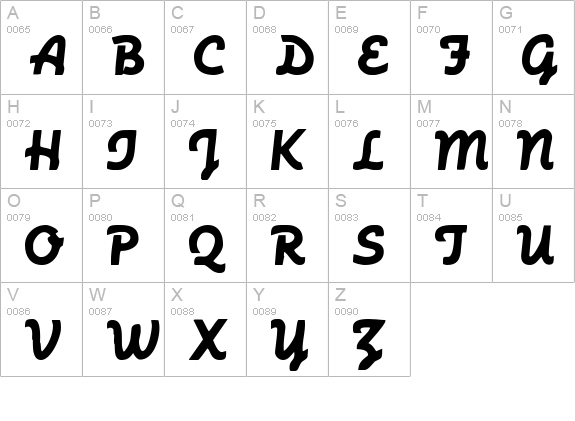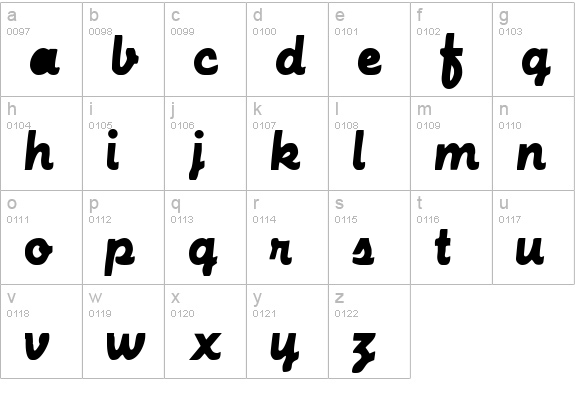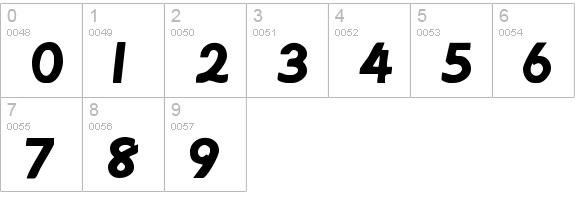
CastlerockScriptSSK is a stunning and elegant font that exudes sophistication and charm. With its graceful curves and stylish letterforms, this script font is perfect for adding a touch of luxury to any design project. Whether you're creating wedding invitations, branding materials, or packaging designs, CastlerockScriptSSK will elevate your work to the next level. The best part is that CastlerockScriptSSK is completely free to download at FontsMarket.com. You can easily access this beautiful font and use it in your projects without any cost. Don't miss out on this amazing opportunity to enhance your designs with the timeless beauty of CastlerockScriptSSK. Download it today and let your creativity shine!